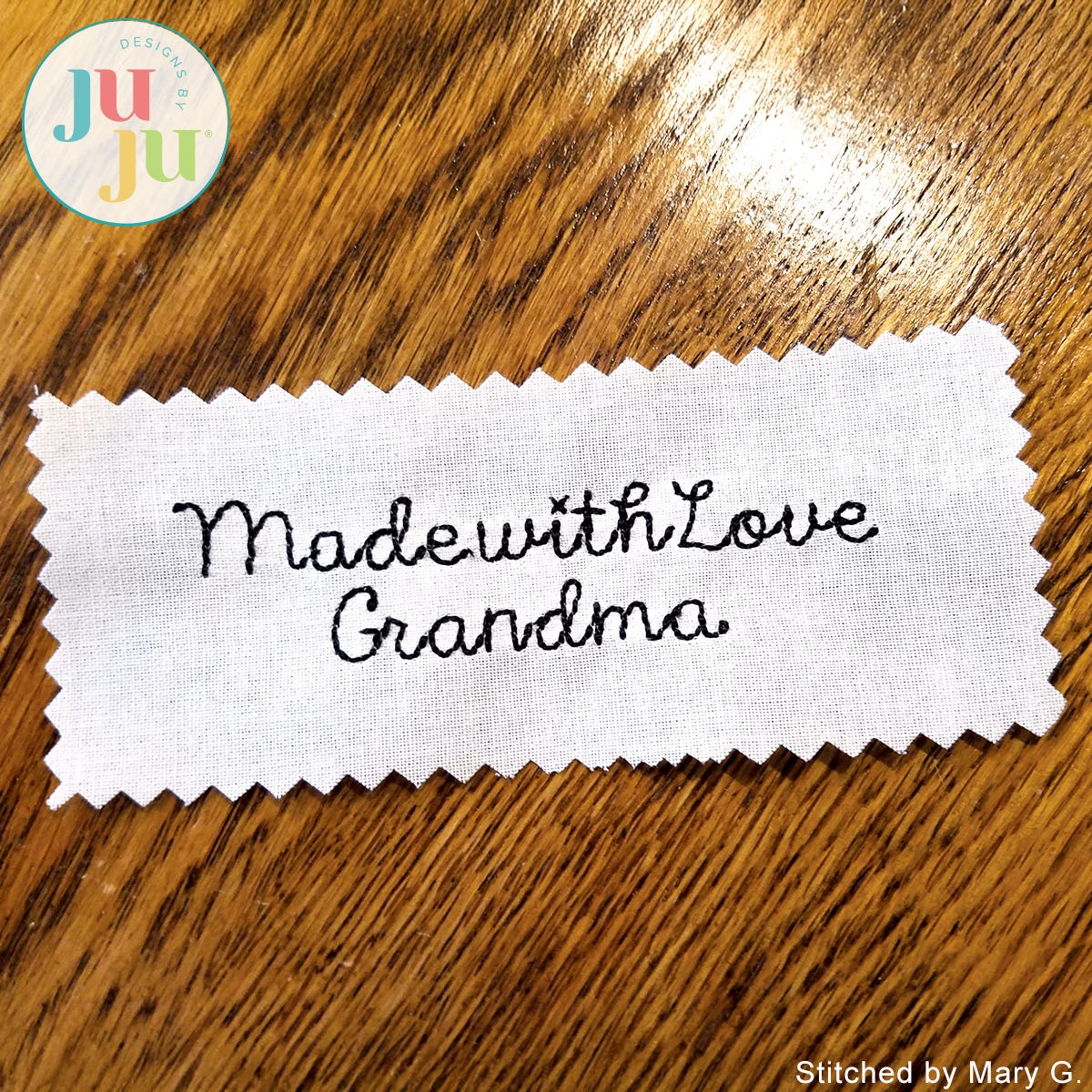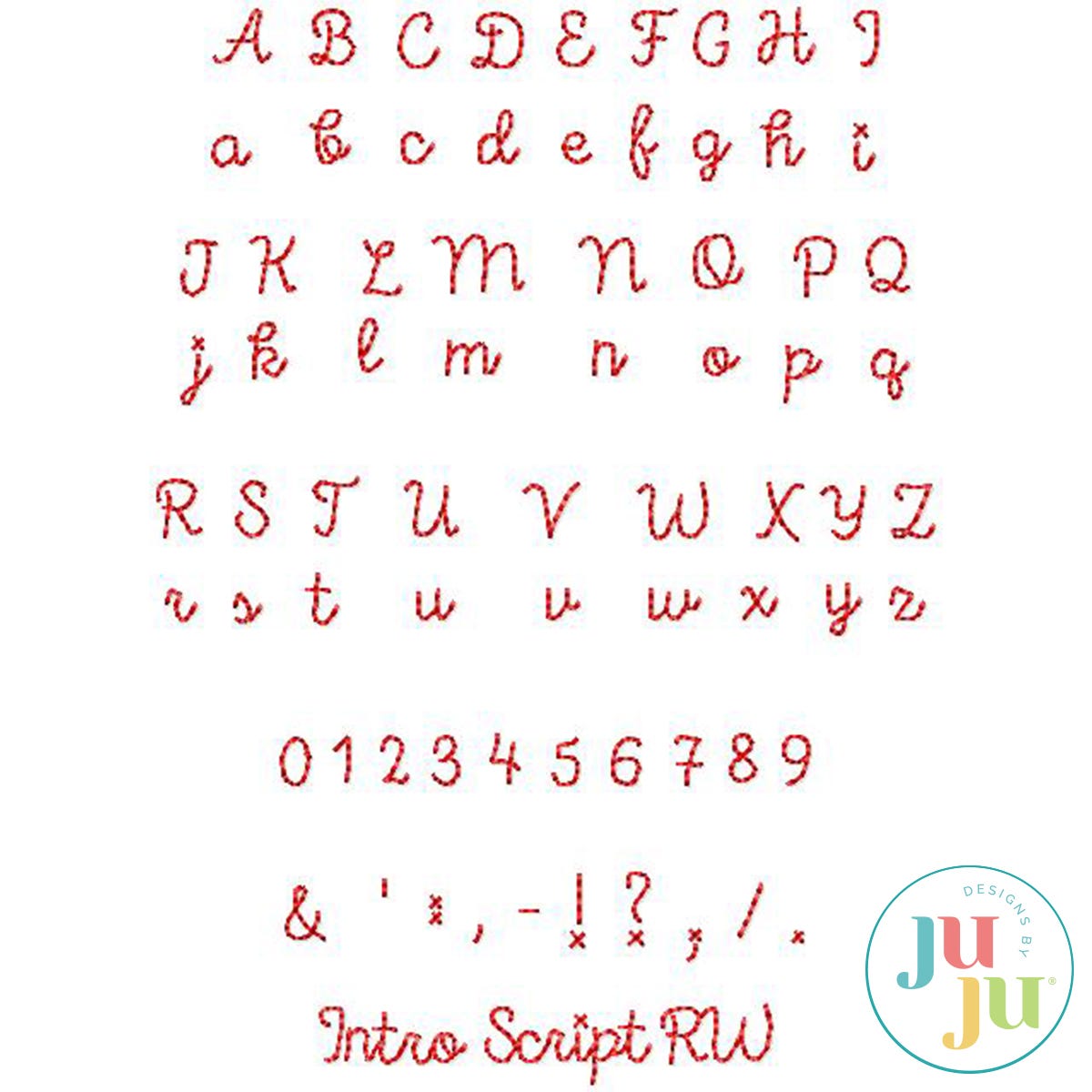
Intro Script Redwork Embroidery Font by Oma's Place
This small line font stands about 0.32" (about 8 mm) tall. Some may be slightly taller because of some descenders. Every attempt has been made to have each letter of this font start on the left and end on the right for optimal, smooth stitchout. Perfect for quilt labels. Your download includes all lower and upper case letters and numbers 0 through 9. In addition, some commonly used punctuations are part of your download as well. Comes in 10 different machine formats as well as in bx for Embrilliance users.